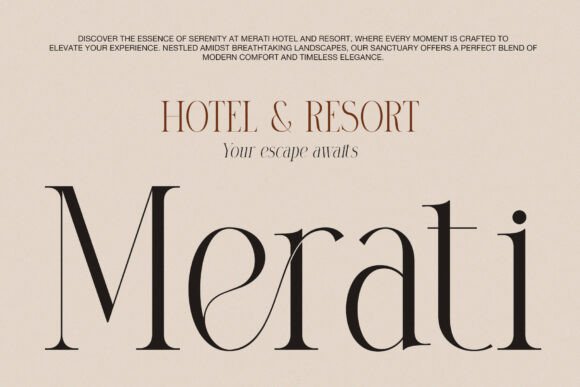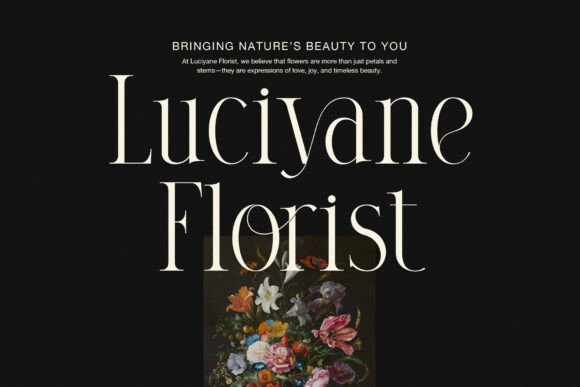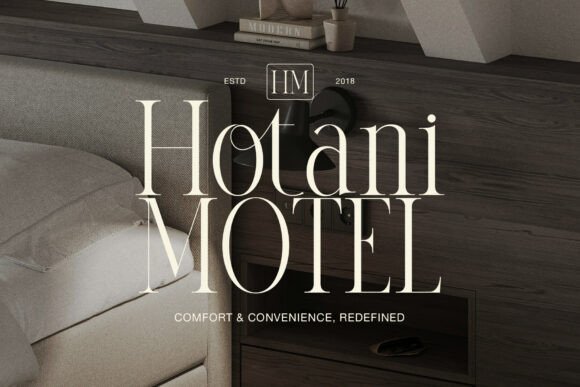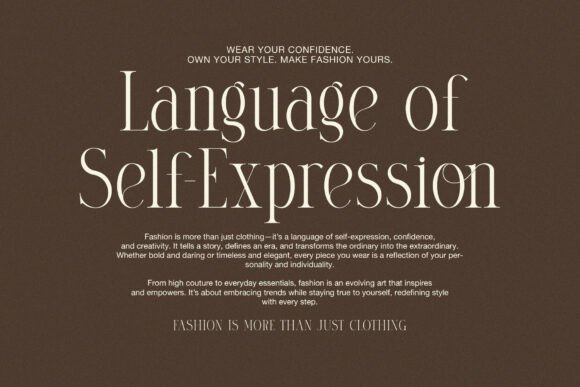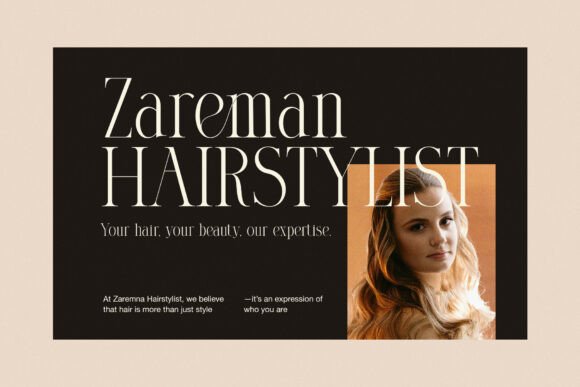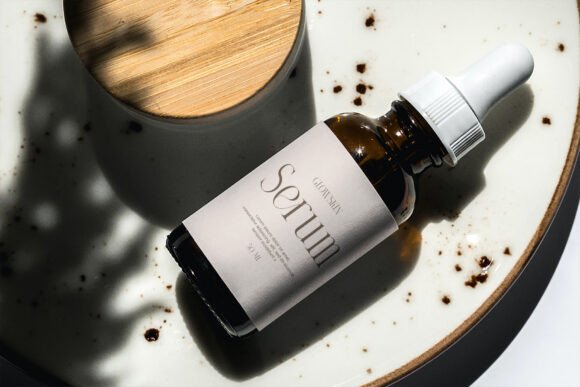
Introducing Diglome Font: Elevate Your Designs with Elegance and Sophistication
In the world of typography, a font can make all the difference in the success of a design project. For designers and crafters seeking to add a touch of luxury and sophistication to their work, the Diglome Font is an exceptional choice. This modern serif typeface is designed to exude confidence, grace, and timeless elegance, making it perfect for a wide range of applications.
The Design Behind Diglome
Diglome Elegant Serif Font is a masterful blend of classic typography principles and contemporary aesthetics. Its high contrast strokes, refined curves, and beautifully crafted ligatures bring a level of sophistication and elegance to any design. The font’s stylish alternate characters and custom ligatures allow for dynamic and expressive typographic compositions, making it an ideal choice for designers who crave refined details.
Key Features of Diglome Font
- High Contrast Strokes: The font’s high contrast strokes create a sense of drama and elegance, adding depth and visual interest to any design.
- Refined Curves: The refined curves of Diglome’s letterforms bring a level of sophistication and luxury to the font, making it perfect for high-end designs.
- Beautifully Crafted Ligatures: The font’s ligatures add a touch of elegance and refinement to any design, allowing for creative and expressive typographic compositions.
- Stylish Alternate Characters: Diglome’s stylish alternate characters provide designers with a range of options for customizing their typography, adding a level of uniqueness and personality to their designs.
Perfect for a Range of Applications
Diglome Font is designed to be versatile and elegant, making it suitable for a wide range of applications. Whether you’re designing a luxury logo, crafting editorial headlines, or creating impactful brand identities, Diglome elevates your message with a polished and premium look.
Luxury Logos and Brand Identities
For designers seeking to create a luxurious and sophisticated brand identity, Diglome Font is an exceptional choice. Its elegant letterforms and refined details make it perfect for high-end logos, packaging, and marketing materials.
Editorial Headlines and Magazine Layouts
Diglome Font is also ideal for editorial headlines and magazine layouts. Its high contrast strokes and refined curves create a sense of drama and elegance, adding visual interest to any article or feature.
Website Headers and Digital Projects
In addition to its suitability for print projects, Diglome Font is also perfect for digital projects. Its balance of form and function makes it equally suitable for website headers, social media graphics, and other digital applications.
Why Choose Diglome Font?
So why choose Diglome Font for your next design project? Here are just a few reasons:
- Timeless Elegance: Diglome’s classic design ensures that your typography will remain elegant and sophisticated for years to come.
- Versatility: The font’s versatility makes it suitable for a wide range of applications, from luxury logos to editorial headlines.
- High-End Look: Diglome’s refined details and elegant letterforms give your designs a high-end look that’s sure to impress.
In conclusion, Diglome Font is an exceptional choice for designers and crafters seeking to add a touch of luxury and sophistication to their work. Its elegant design, refined details, and versatility make it perfect for a wide range of applications. Whether you’re designing a luxury logo, crafting editorial headlines, or creating impactful brand identities, Diglome Font is sure to elevate your message with a polished and premium look.